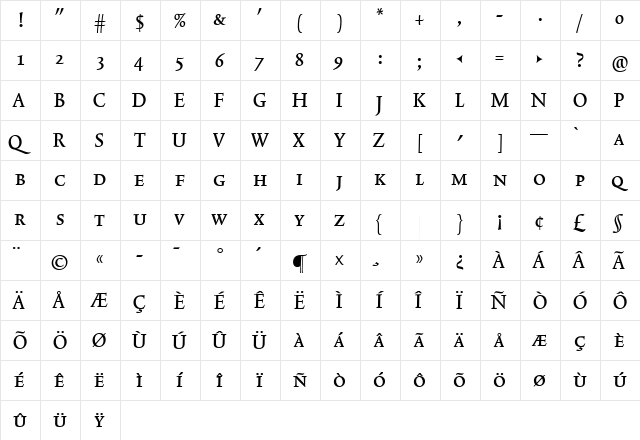
TriniteNo1 MediumCondensedExp
Design Context for TriniteNo1 Typeface
TriniteNo1 offers clean, dependable letterforms without strong stylistic allegiance, making it a practical choice for designers who need flexibility. Its narrow stance lets it pack a punch even in space-constrained designs.